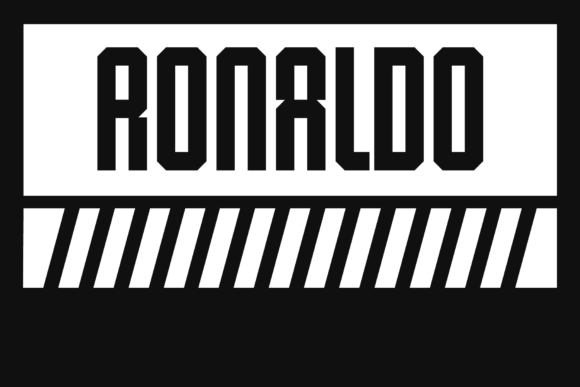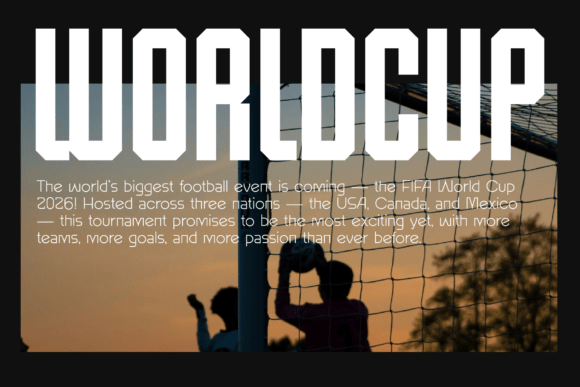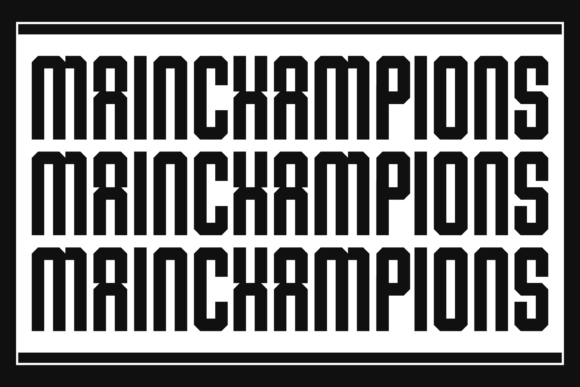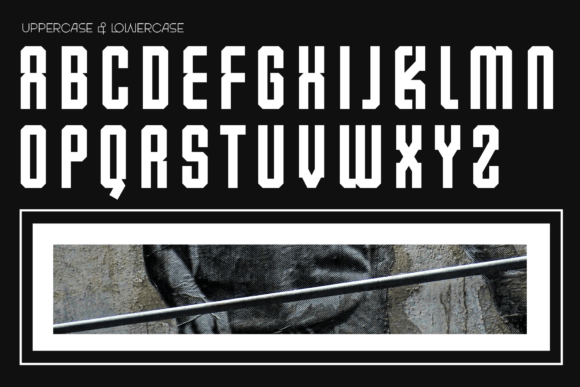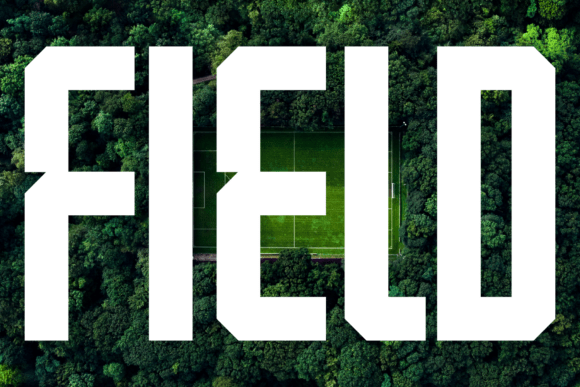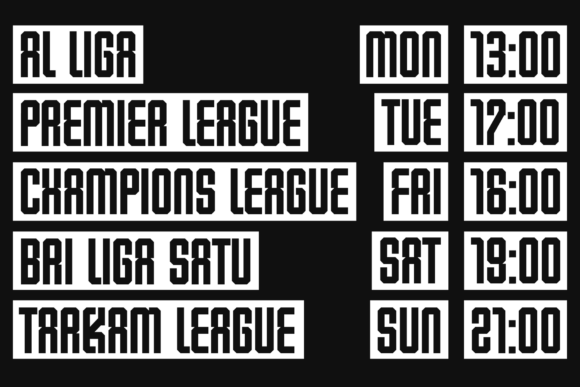
The Winning Formula for Your Next Design Project
Imagine you’re on the threshold of a major design project – a sports-themed campaign or a high-stakes gaming event. You need a font that embodies the energy, power, and competitive spirit of the athletes and gamers involved. The moment you see the Drivixa Champions Font, you know you’ve found the perfect partner for your winning design.
DRIVIXA CHAMPIONS is a high-performance athletic typeface designed to dominate the track and the screen. Its bold, geometric display font is built with powerful angles and athletic energy, making it ideal for headlines, team branding, event posters, and gaming visuals. With its squared structure and compact spacing, this font exudes confidence and motion in every letterform, giving designers a valuable edge in creating strong, impactful designs.
Whether you’re a seasoned designer or a newcomer to the world of sports and gaming graphics, Drivixa Champions Font is the perfect tool to help you lead the game and achieve your design goals.
Drivixa Champions Font Key Features
- Unique Characteristics: Features a bold and modern design, with a unique blend of geometric and sans-serif elements, making it perfect for sports and action-themed designs.
- Language Support: Supports a wide range of languages, including Latin, Cyrillic, and Greek, making it a versatile font for global applications.
Drivixa Champions Font Review
As a designer, I’ve had the chance to work with the Drivixa Champions Font, and I must say it’s a mixed bag. Here’s my honest take.
- The font’s bold and sporty feel is perfect for any athletic or action-packed branding.
- The Champions Font is highly customizable, making it a great choice for designers who want to add a personal touch.
- It’s available in a range of weights, from light to bold, giving designers flexibility when it comes to typography.
- The font may not be the best choice for more formal or professional branding, as it can come across as too playful.
- The font’s condensed shape can make it difficult to read in smaller sizes.
- The Champions Font is not ideal for body text, as it can be overwhelming when used for extended periods.
Overall, I’d say the Drivixa Champions Font is a solid choice for designers who need a bold, eye-catching font for sports or action-themed branding. However, it may not be the best fit for every project, and designers should be aware of its limitations before using it.
Tips for Getting the Most Out of Drivixa Champions Font
Use Drivixa Champions Font for bold and confident headings, and pair it with a clean and simple font for body text.
Use it for sports-themed designs, such as jerseys, logos, and promotional materials.
Experiment with different font sizes and colors to create a unique and eye-catching look.
Drivixa Champions Font is commonly used for:
Sports-themed designs, such as jerseys, logos, and promotional materials.
Confident and bold headings for websites, social media, and marketing materials.
Personalized gifts and merchandise, such as t-shirts, mugs, and water bottles.